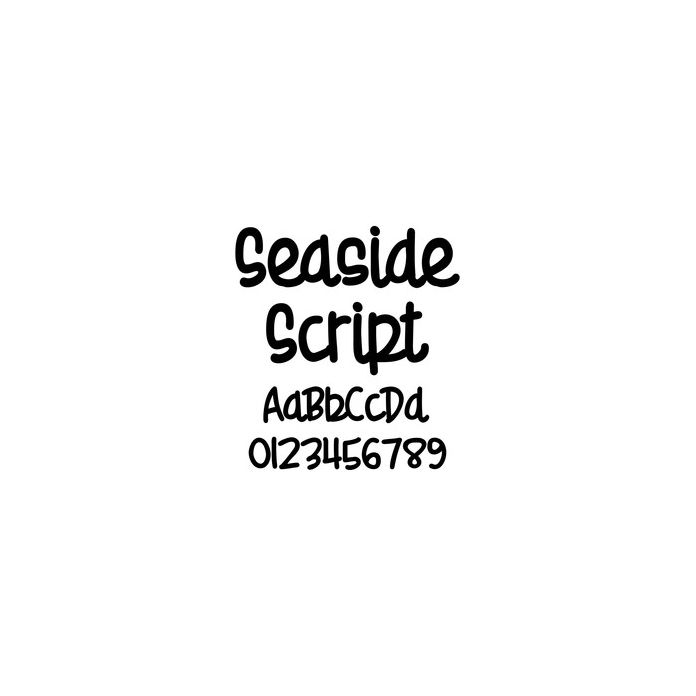
This beautiful simple script is perfect for journaling and thick enough to cut. For more fun fonts like this please visit: http://www.letteringdelights.com/lettering/fonts-c1c3